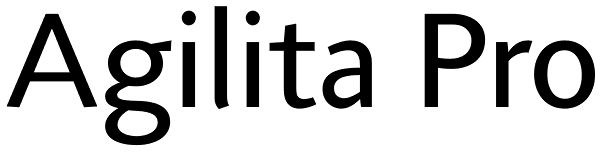
Agilita Pro
Created by German designer Jürgen Weltin, Linotype’s Agilita is a contemporary humanist sans serif family with a wide variety of weights, including both ultra thin hairline options and heavier, dark type. Agilita has rather classical proportions...